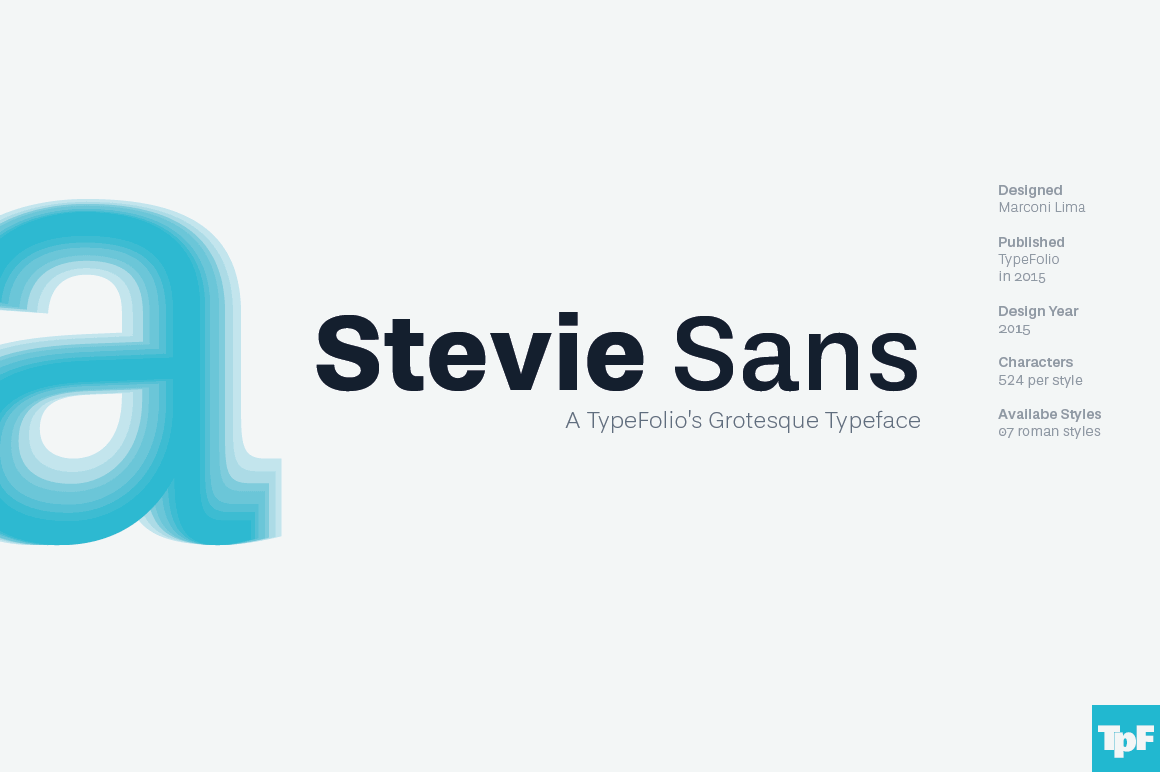
Meet Stevie Sans, a modern take on the grotesque typeface. With weights ranging from Thin to Medium to Black, it’s like getting 7 professional fonts in 1. A brilliant choice for headlines and small text, this bad boy is perfect for loads of printed projects ranging from T-shirts to prints. Toss in a gaggle of OpenType Features and support for more than 70 languages, and there’s no excuse not to add Stevie Sans to your typeface toolbox today!
- Modern font family with a grotesque design.
- 7 fonts in 1 – weights include Thin, Light, Book, Regular, Medium, Bold and Black.
- Packed with OpenType features – alternative characters, oldstyle figures, numerators, denominators, superiors, inferiors, ligatures.
- Multi-Lingual – supports 72 languages.
- Good choice for headlines and small text, as well as printed projects including posters, T-shirts, logos, prints and more.